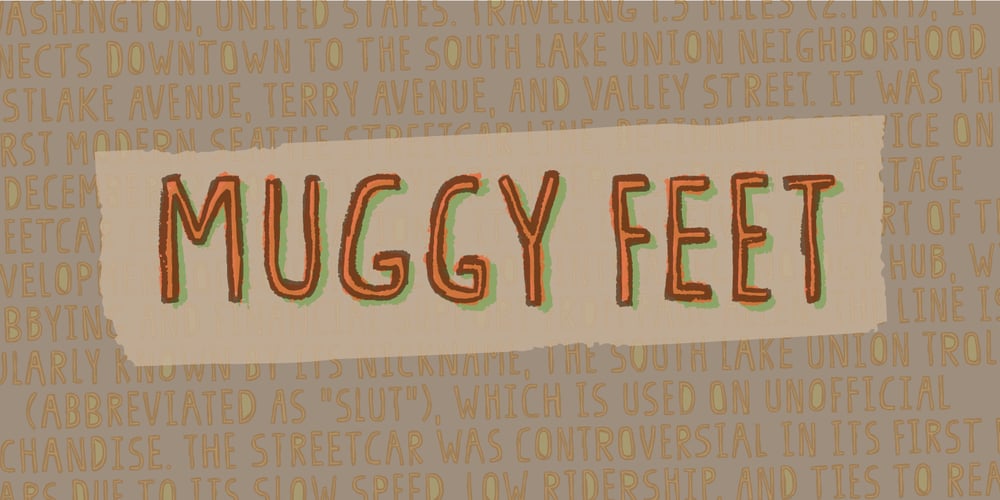
Muggy Feet
Muggy Feet font
Muggy Feet Font Family was designed by Jakob Fischer and published by PizzaDude.dk. Muggy Feet contains 5 styles and family package options. Muggy Feet is my handpainted and layered font. Mix the five different layers for realistic looking results. What makes it even more realistic is that the font uses “contextual alternates”, which means that every letter of Muggy Feet has 5 different versions. Also, try to play around with the transparency of each layer of Muggy Feet. Muggy Feet is ready for your invitation, poster, book cover, packaging or signs.